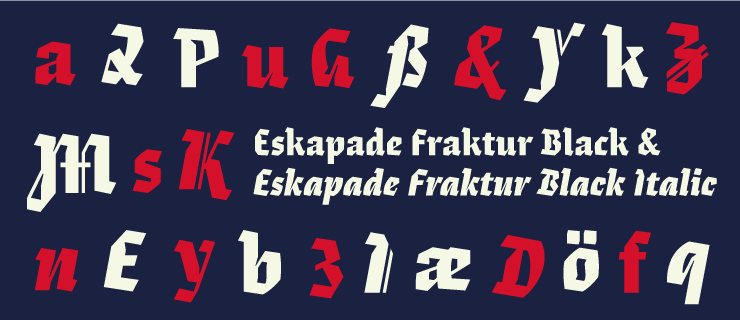
TypeTogether releases Alisa Nowak’s Eskapade Fraktur Black and Fraktur Black Italic
After three years of its release, Alisa Nowak’s inventive Eskapade gets an update with a new Fraktur Black and Fraktur Black Italic.